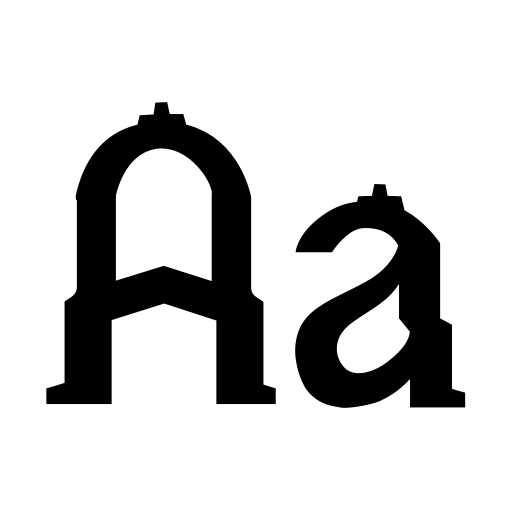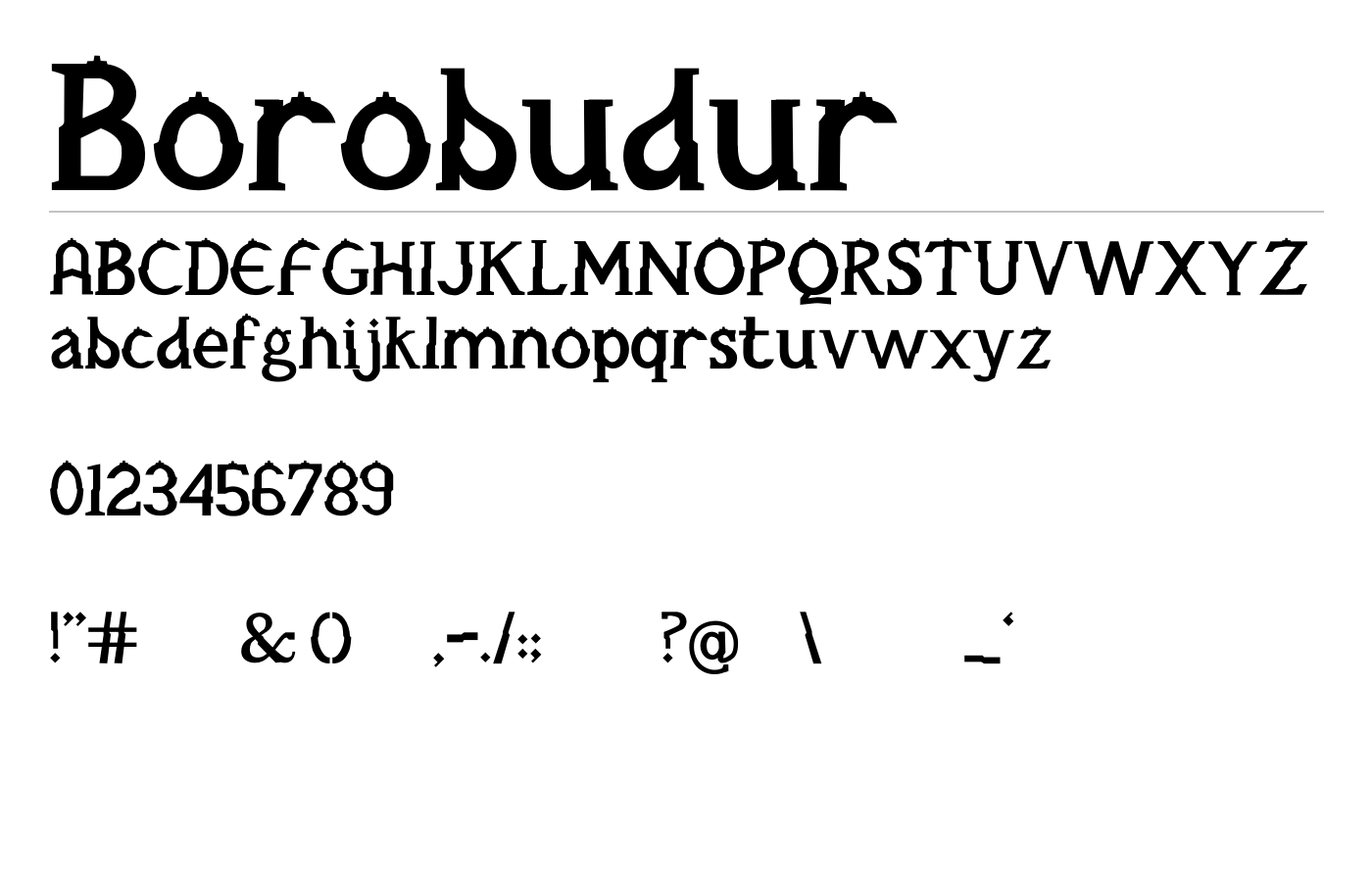
Borobudur is a unique serif font with a distinct, slightly whimsical character that combines sharp, angular serifs with an irregular, handcrafted feel. Its medium weight and normal width lend it good readability, while the quirky letterforms and subtle stroke contrast give it a vintage yet playful personality. This font works well for creative branding, posters, and editorial designs that seek to convey an artistic or cultural vibe with a touch of elegance and individuality.
Borobudur Font
About Borobudur Font